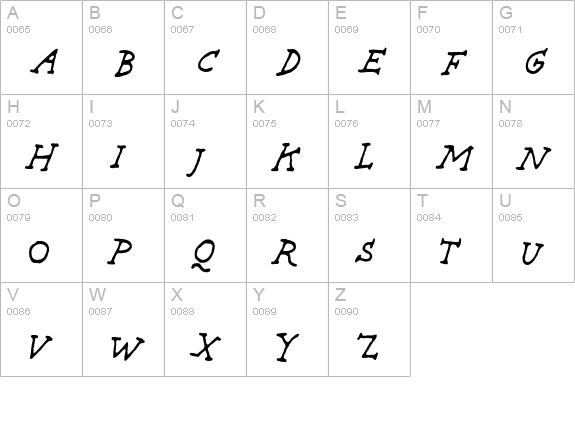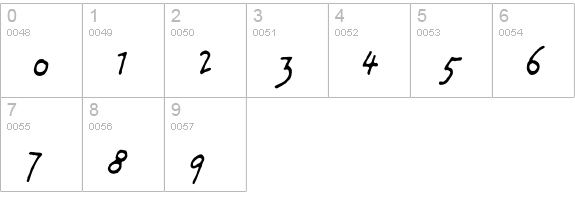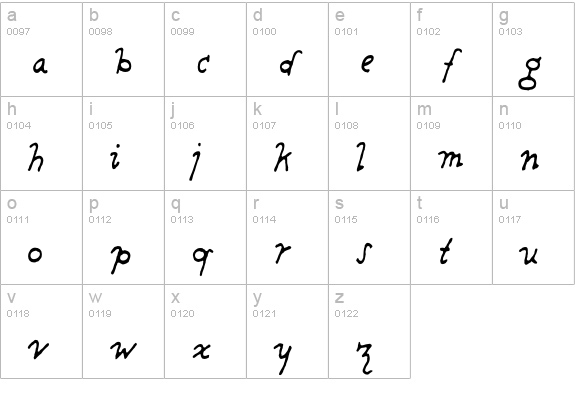
Providence-Italic Font Details
Providence-Italic is a distinctive, italic variant in the Providence typeface family \xE2\x80\x94 well suited to design and typography projects.
Providence-Italic is a beautifully crafted font that exudes elegance and sophistication. Its slanted design adds a touch of modernity while still maintaining a timeless quality. The graceful curves and stylish letterforms make Providence-Italic perfect for adding a touch of flair to any design project. What sets Providence-Italic apart is not only its stunning aesthetics but also the fact that it is available for free download at FontsMarket.com. This means that you can easily access this exquisite font and use it in your creations without any cost. Whether you're working on a branding project, a wedding invitation, or any other design endeavor, Providence-Italic will elevate your work with its charm and finesse. Download Providence-Italic today and discover the beauty of this free and versatile font.